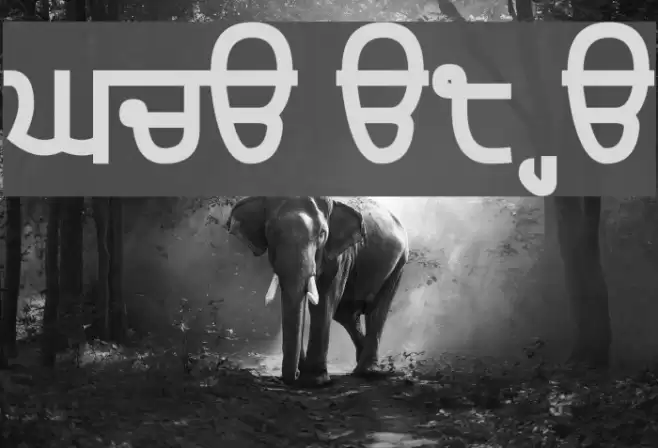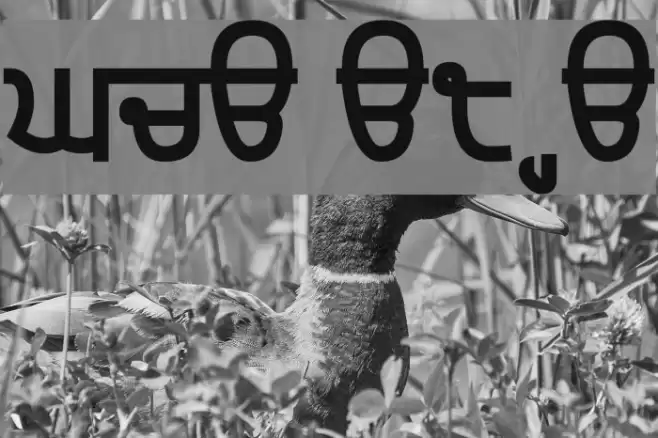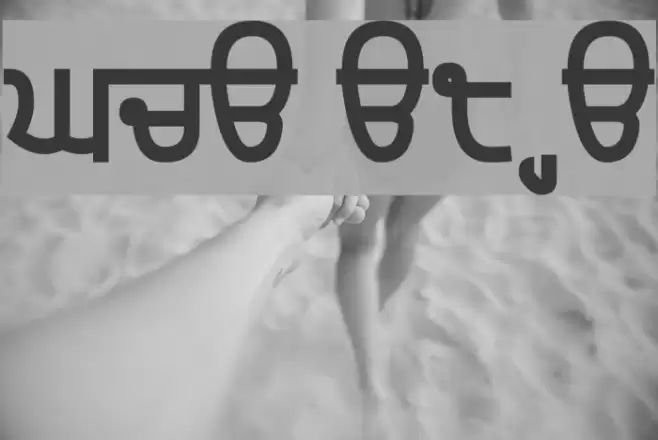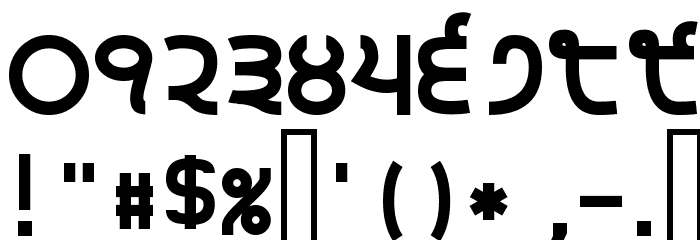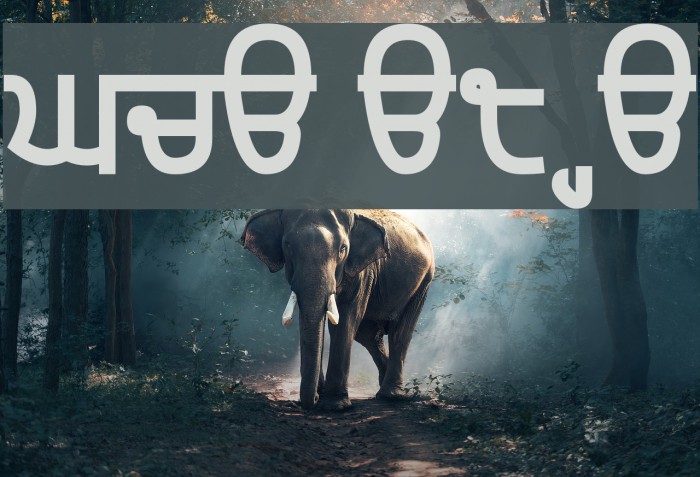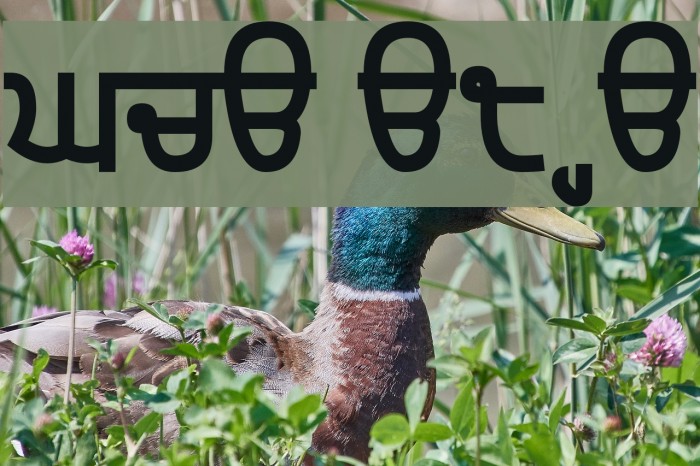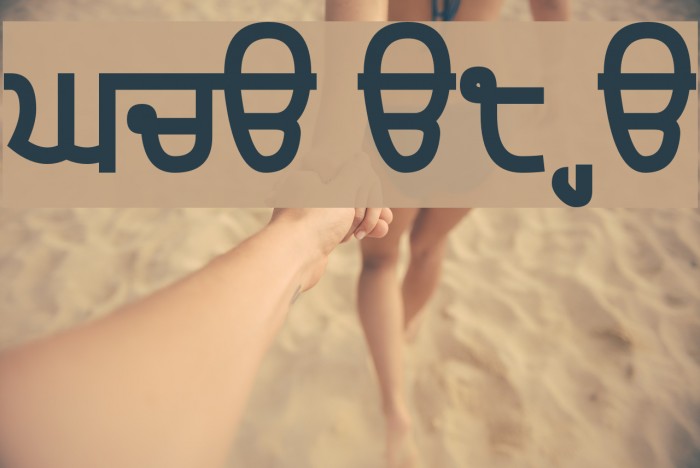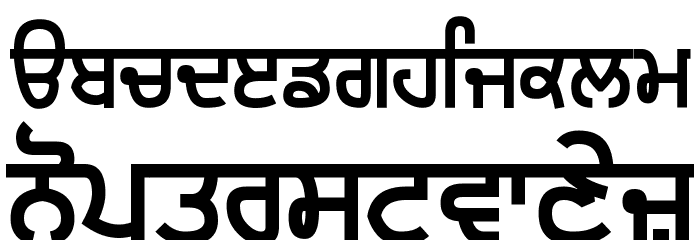
Gurvetica a8 Heavy Font
Gurvetica a8 Heavy Description
A bold, geometric typeface with heavy strokes and uniform thickness, featuring clean lines and a modern appearance. The characters are wide and evenly spaced, with a consistent height and minimal contrast between thick and thin strokes.
A heavy, geometric, and modern typeface with bold, uniform strokes from Asian fonts.
- Proposed Projects: Posters, headlines, branding, signage, advertising, display graphics.
- Width: Expanded
- Overall Style: Modern, Decorative
- Use Case: Headlines, Posters, Logos, Signage